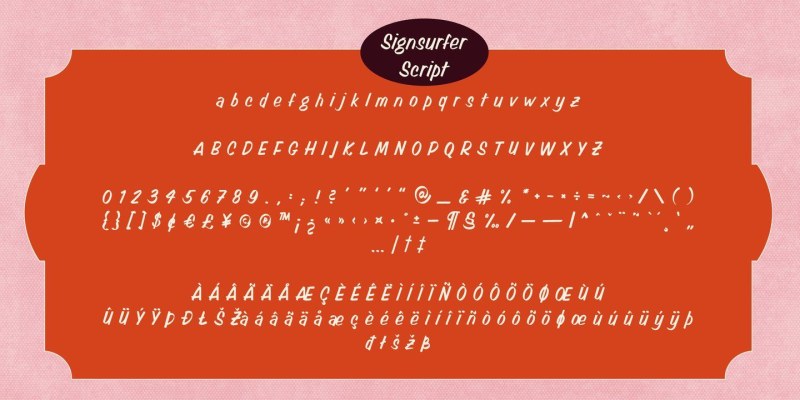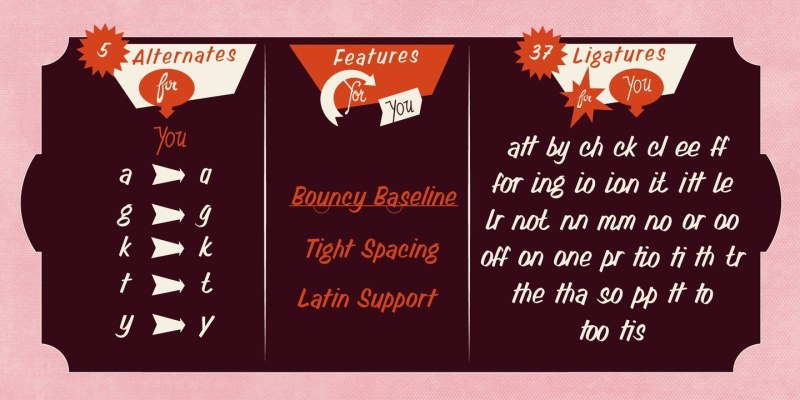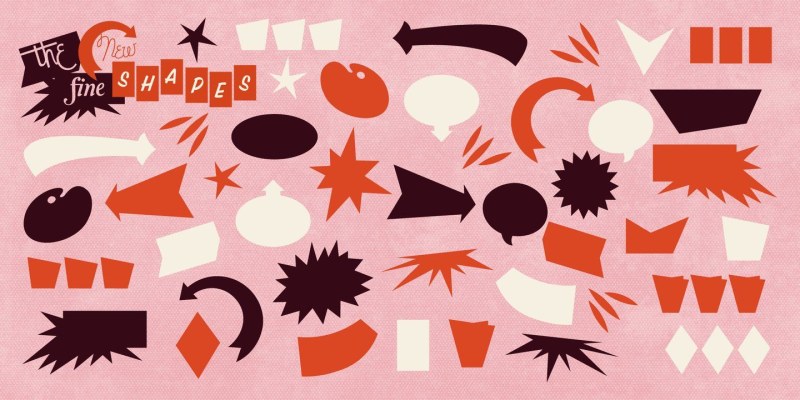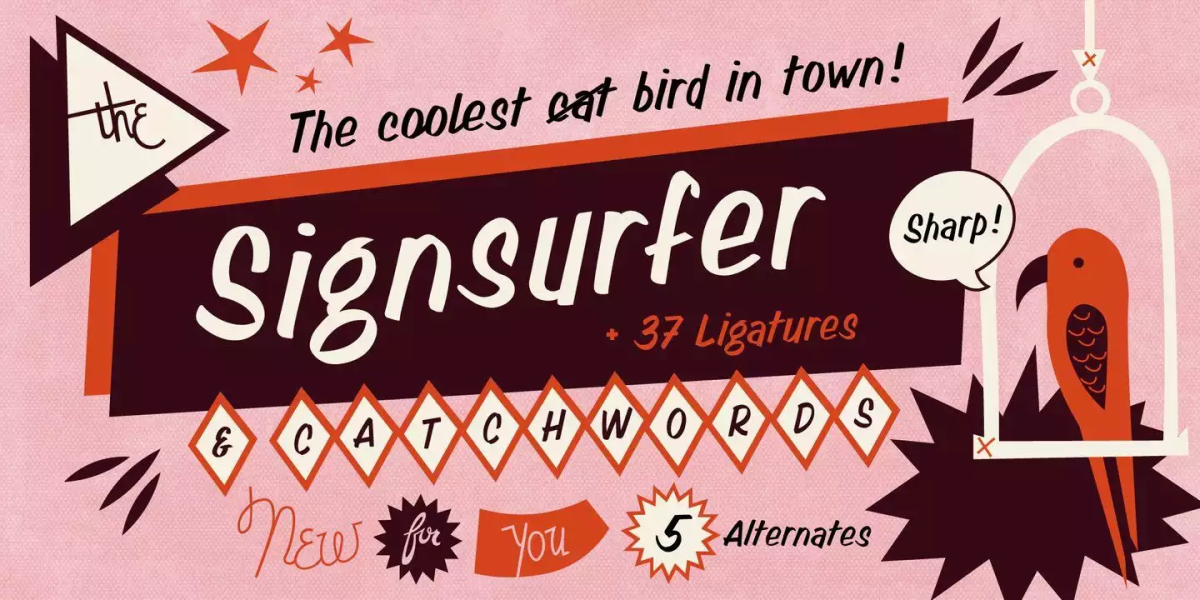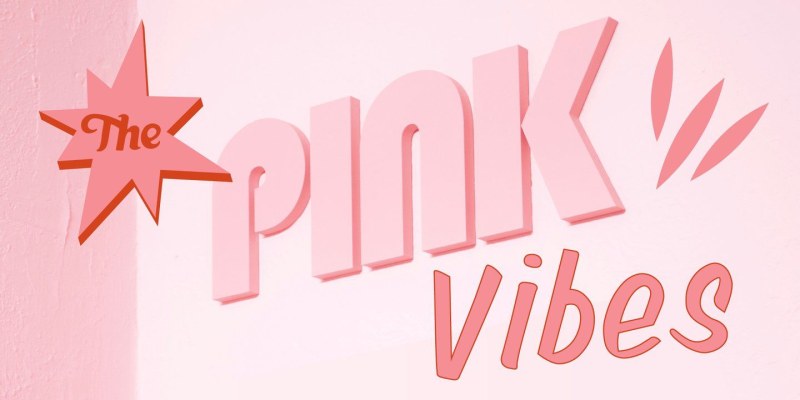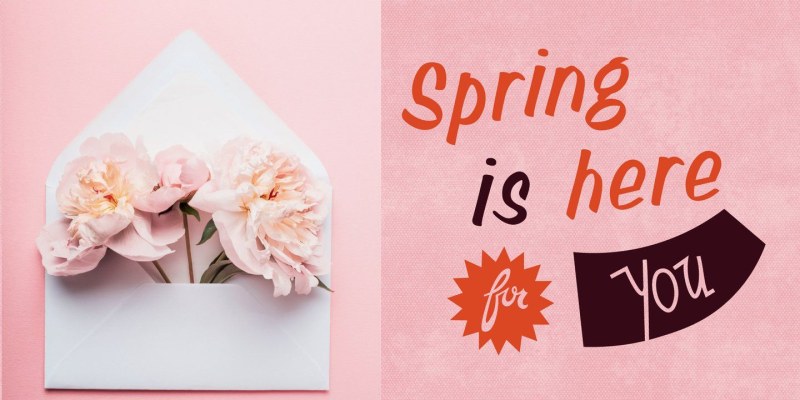
Signsurfers Script Font Family
Signsurfer is a unique retro font – a signpainter font, handwritten by me. Inspired by the golden ages of handlettering, this script font highlights:a bouncy baseline, tight spacing, and full Latin support. Lots of really cool catchwords & shapes, five alternates and 37 ligatures help you to really get creative with this one.
Signsurfers Script Font Family is a Script And Handwritten font that brings a professional and versatile look to your projects. Signsurfer is a unique retro font – a signpainter font, handwritten by me.